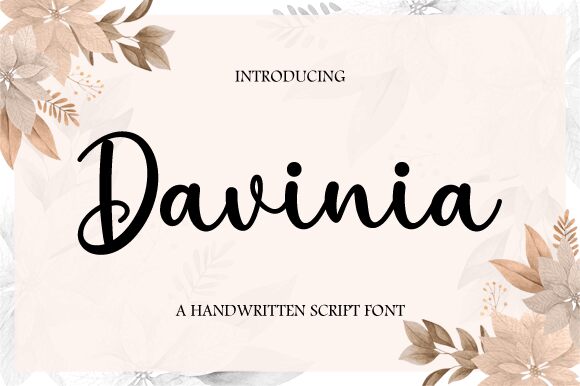
Davinia
Davinia, a creation by Nirmala Creative, brings the charm of handwritten artistry to the digital realm. Its fluid strokes and organic forms exude a warmth and personal touch that resonate with the elegance of traditional calligraphy. The font's generous curves and occasional flair give it a sense of informal sophistication, making it not just legible but visually delightful.
This stylized script finds its place in numerous design settings where personality and intimacy are paramount. From wedding invitations to branding for boutique businesses, Davinia lends an air of bespoke craftsmanship. In creative projects like book covers or editorial headings, it adds a humanistic tone that invites readers into a narrative embrace. Davinia is not just another typeface; it's a versatile tool for conveying messages with heart and style.